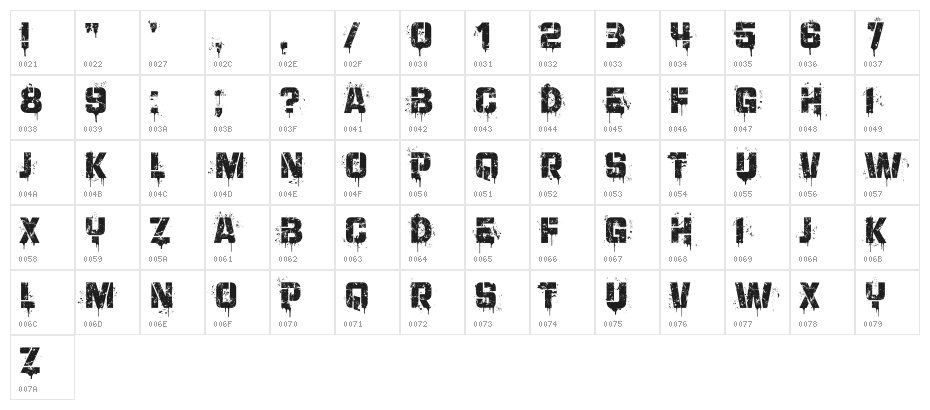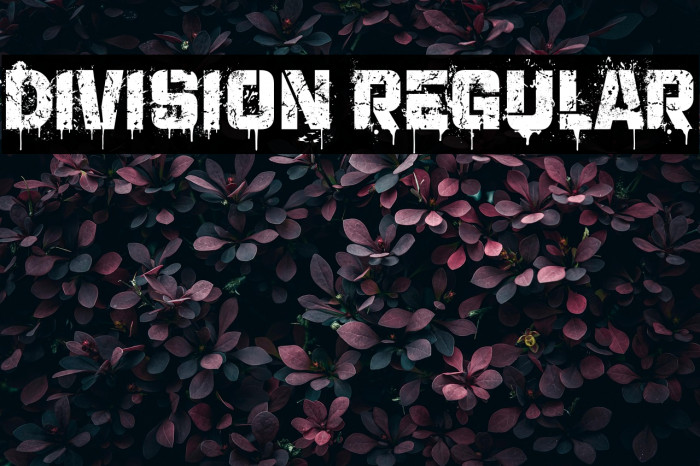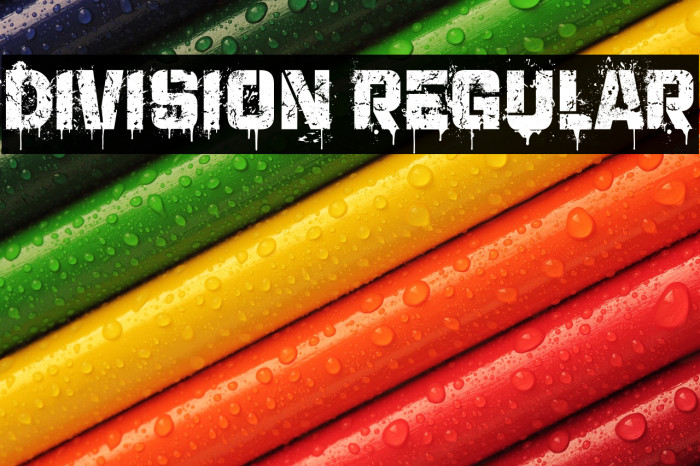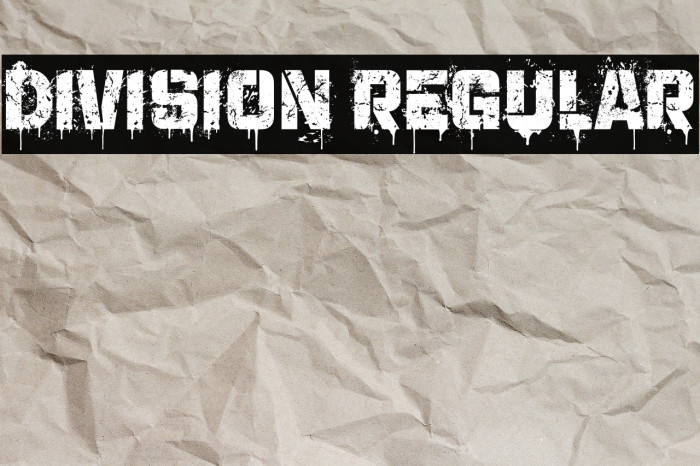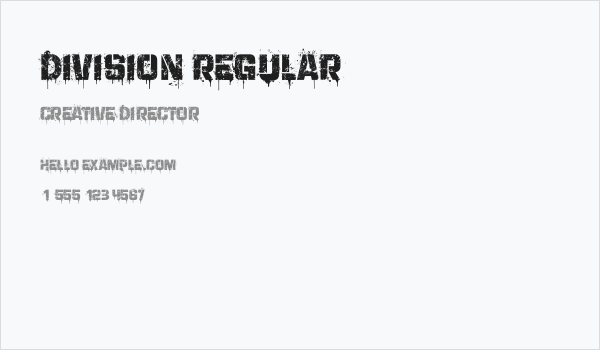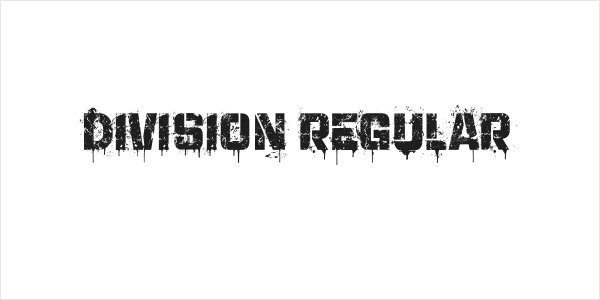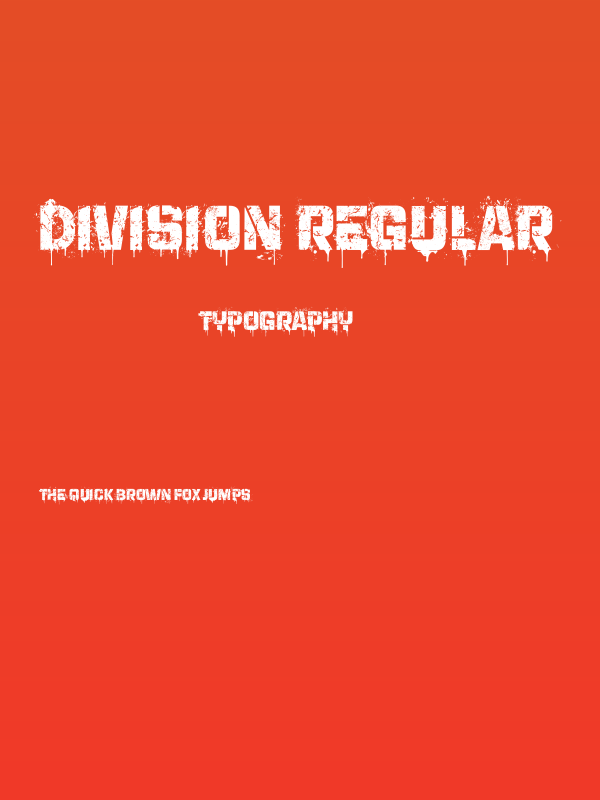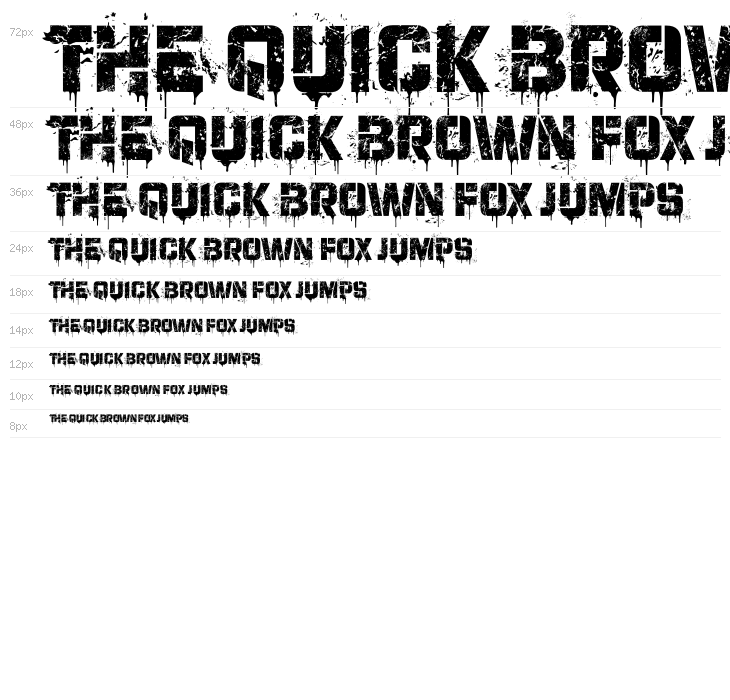
Division Regular Font
Division Regular Description
This font features a bold, distressed style with a grunge aesthetic. Each character appears as if it has been spray-painted, with drips and splatters adding to its urban, edgy look. The uppercase and lowercase letters maintain a consistent height, while the numbers and special characters follow the same rugged theme. The font's design is reminiscent of street art and graffiti, making it ideal for projects that require a raw, rebellious feel. Its unique appearance ensures it stands out, making it suitable for eye-catching designs.
| Overall Style | Grunge, Urban, Edgy |
| Proposed Projects | Ideal for album covers, streetwear branding, event posters, and urban-themed designs. |